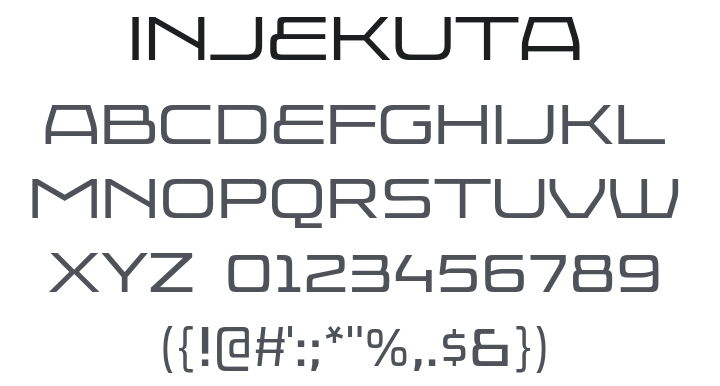
Injekuta Font Family
About Injekuta
Injekuta is a contemporary industrial sans-serif with a sharp, technical character that feels tuned for the future — clean geometric letterforms with a confident, precise authority that sits perfectly between corporate cool and sci-fi edge. Available in Light, Regular, Bold, and Black. Great for tech branding, futuristic headlines, product packaging, logos, and any design that needs to project forward-thinking sophistication.